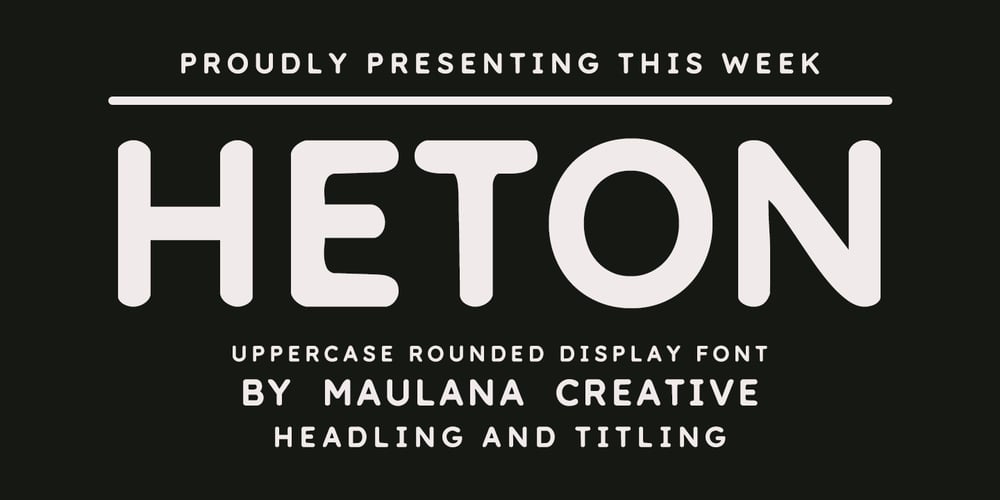
MC Heton Font Family was designed by Gilang Maulana and published by Maulana Creative. MC Heton contains 1 styles and family package options. Heton Uppercase Display is a modern sans serif display font. With rounded font, fun character with some of ligatures. To give you an extra creative work. Heton Display font support multilingual more than 100+ language. This font is good for logo design, Social media, Movie Titles, Books Titles, a short text even a long text letter and good for your secondary text font with script or signature typeface. Make a stunning work with Heton Display font.Cheers,Maulana Creative